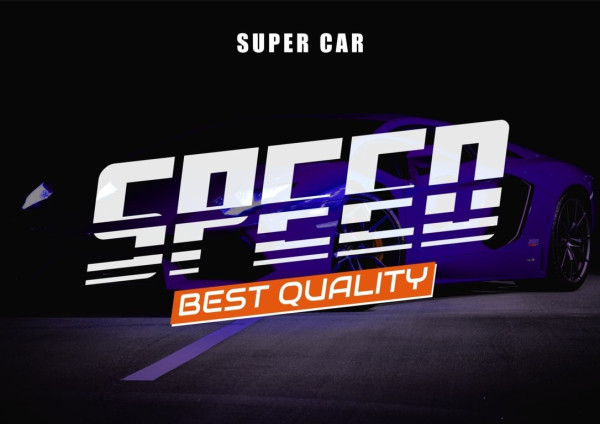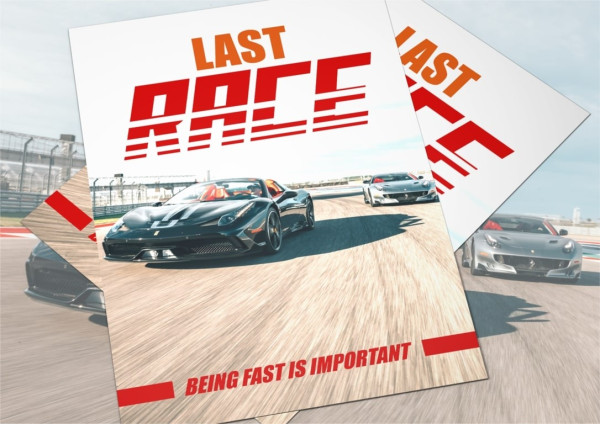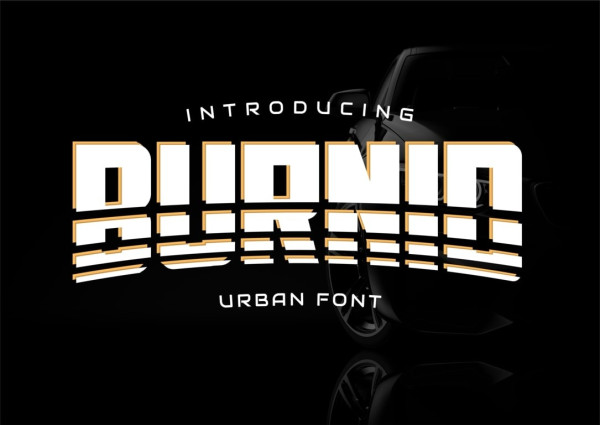
Burnid Display Font
Burnid Display Font, an incredible sports font boasting modern stencil. Perfect for capturing the essence of fast car racing sports titles, running matches, cycling events, automotive game logos, monograms, and other contemporary dynamic text. BURNID stands out with its excellent legibility and size, evoking a sense of power and speed. Embrace the dynamic allure of Adegor as it elevates your designs to new heights, embodying the exhilaration and intensity of sports.